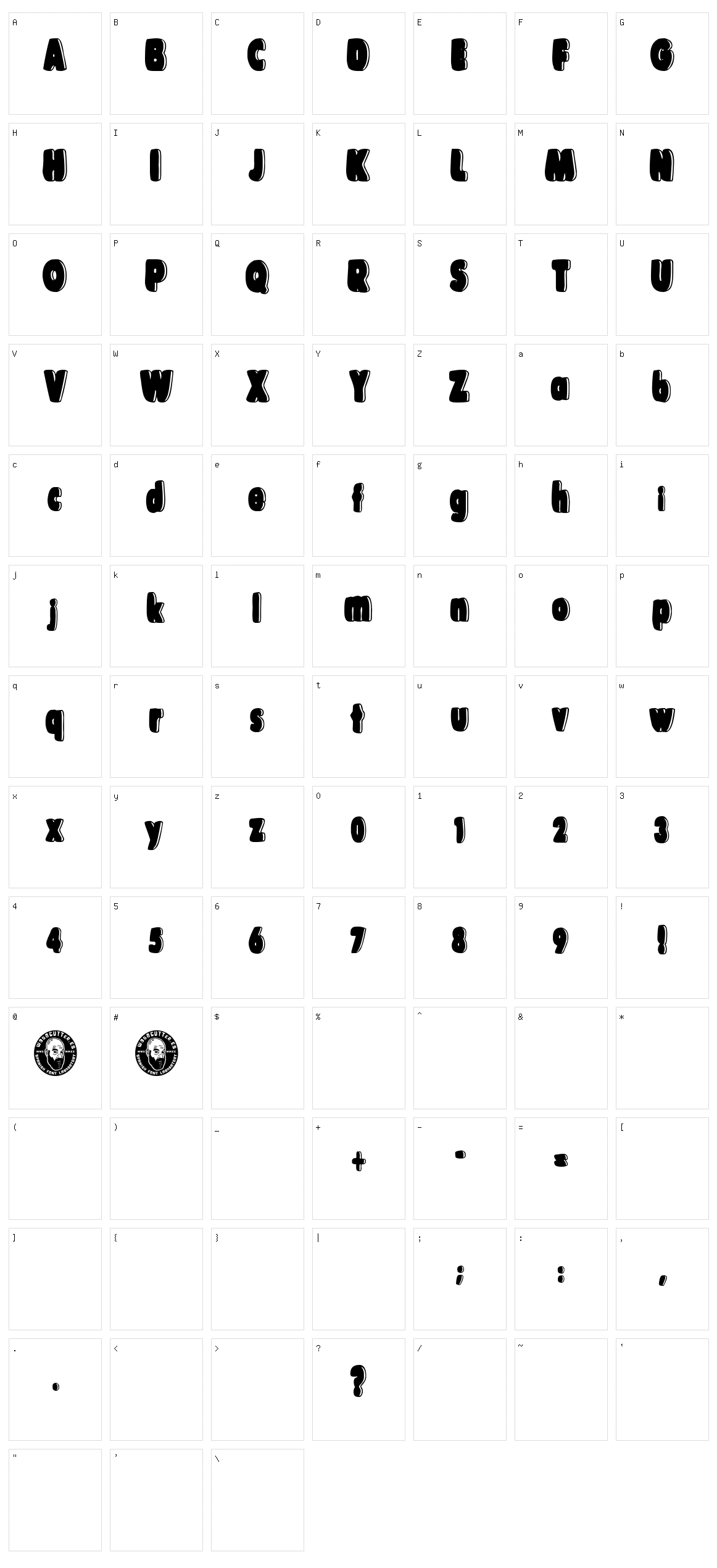
The free font The Happy Bear is carefully designed by Woodcutter, showcasing a thoughtful balance of creativity and usability and falls under the Cartoon font style. When you download the ZIP file, it contains only 46.91 KB of font files, making it lightweight and quick to download. Please review the license details below to understand permitted usage and distribution rights. If license information is not available, we recommend using this font for personal projects only or contacting the author directly for commercial usage permissions.